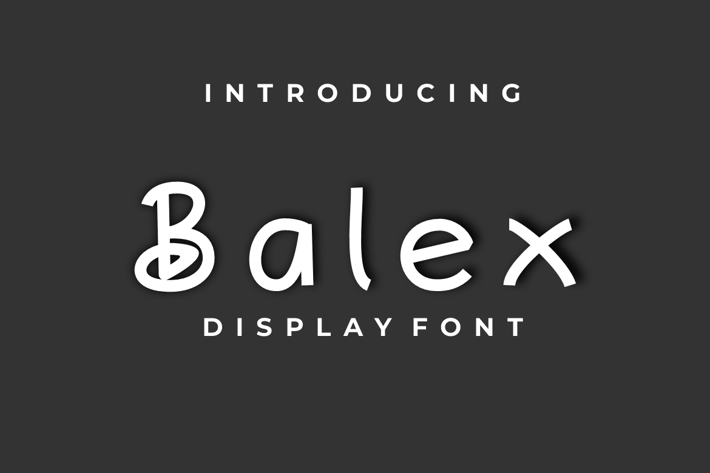
Balek Font
Introducing our new product Balek Font - Modern Font
Balek Font - Modern Font is a bold and authentic display font. The font is suitable for any branding project like logo, t-shirt printing, esport, and many more. outstanding in a wide range of contexts.